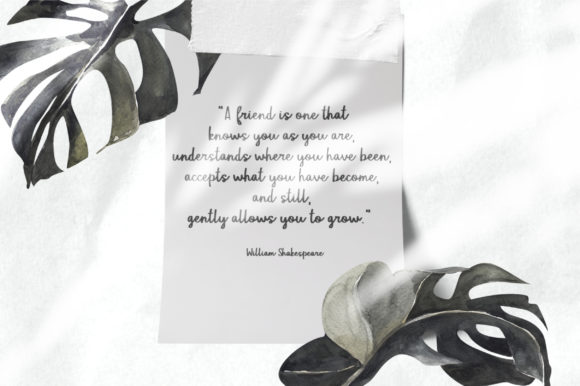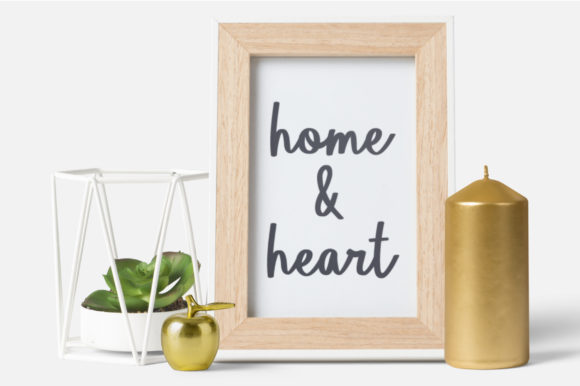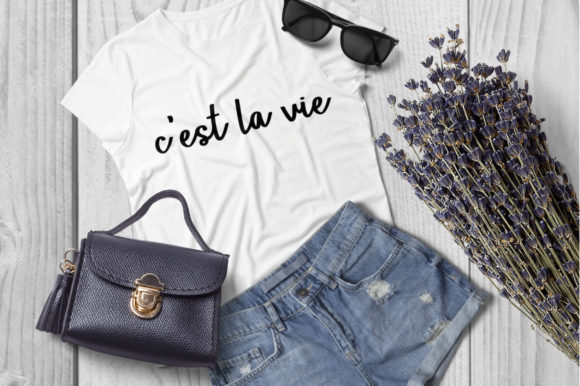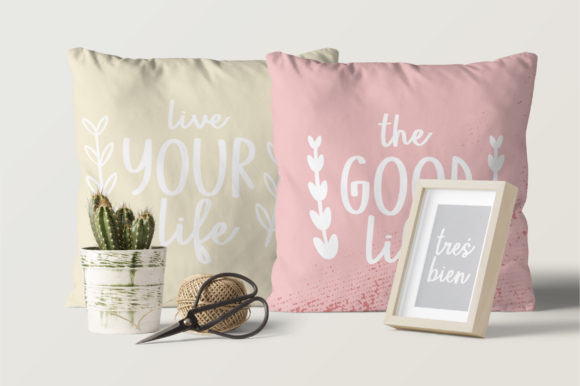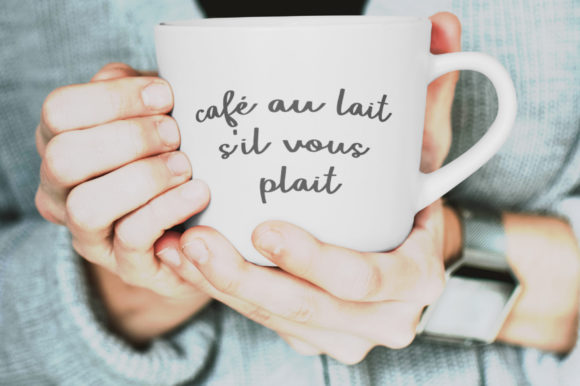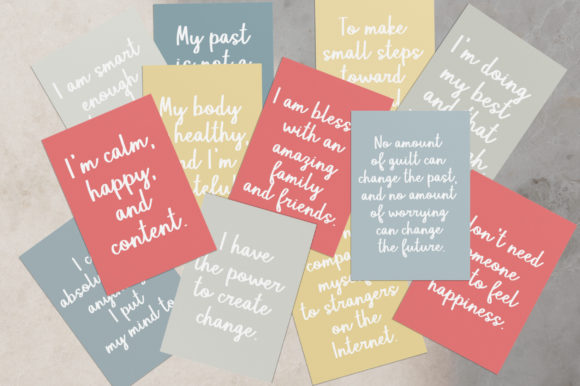
The Perfect Blend of Elegance and Whimsy: Jackson Square Font
Have you ever stared at a blank page, searching for the perfect font to bring your design to life? That moment of creative hesitation is a familiar one for many designers. As you browse through fonts, you’re on the lookout for something that exudes a touch of sophistication, yet still conveys a sense of playfulness.
Enter Jackson Square Font, a flowing handwritten font that embodies the perfect balance of elegance and whimsy. This beautiful font is designed to elevate your projects, from elegant invitations to whimsical illustrations. Its timeless style makes it an invaluable addition to any designer’s toolkit, allowing you to create spectacular designs that stand out from the crowd.
Jackson Square Font Key Features
- Font Family: A unique, hand-drawn font with a mix of modern and vintage elements.
- Size: The font includes a range of weights, from Light to Bold, allowing for flexible typography.
- Resolution: Optimized for use at high resolutions, making it suitable for print and digital applications.
- Unique Characteristics: Features a distinctive, hand-crafted feel with subtle imperfections and variations in letterforms.
- Font Size Range: Suitable for use in body text, headlines, and titles, with font sizes ranging from 8pt to 48pt.
Designer Review: Jackson Square Font
When I first laid eyes on the Jackson Square Font, I was immediately drawn in by its elegant and refined aesthetic ✨. The font’s classic feel is reminiscent of traditional calligraphy, making it a great choice for projects that require a touch of sophistication. I particularly appreciate the font’s versatility, as it works well in both serif and sans-serif settings.
The font’s line variations and subtle flair add an extra layer of depth and character, making it perfect for titles, headings, and other display text ✨. I’ve used the font in various projects, from business cards to branding materials, and it always looks great.
While the Jackson Square Font is an excellent choice for many projects, there are a few limitations to consider ⚠️:
- It’s not ideal for body text, as it can be quite dense and may be difficult to read in smaller sizes.
- The font’s ornate details may not be suitable for projects that require a more modern or minimalist aesthetic.
- It’s not a fully functional font, meaning it may not include all the glyphs and characters you need for international languages.
Overall, I think the Jackson Square Font is a great addition to any designer’s toolkit. While it may have some limitations, its unique character and versatility make it a valuable resource for any project that requires a touch of elegance and sophistication ✨.
Practical Application Guide for Jackson Square Font
For the most striking results, pair Jackson Square Font with bold, bright colors and ornate graphics. It’s particularly effective in wedding invitations, historical or vintage-themed designs, and travel brochures.
Alternatives to Jackson Square Font
Playfair Display is a luxurious, high-end serif font ideal for creating elegant and sophisticated designs. It is perfect for use in invitations, wedding designs, and high-end branding. Compared to Jackson Square Font, Playfair Display has a more refined and classic feel, making it suitable for formal and traditional designs.
Great Vibes is a modern, elegant script font that works well for creating stylish and sophisticated designs. It is ideal for use in invitations, wedding designs, and branding for fashion and lifestyle companies. Compared to Jackson Square Font, Great Vibes has a more fluid and dynamic feel, making it suitable for designs that require a touch of elegance and sophistication.
Canela
Canela is a beautiful, elegant script font that is perfect for creating romantic and sophisticated designs. It is ideal for use in wedding designs, invitations, and branding for companies that want to convey a sense of elegance and refinement. Compared to Jackson Square Font, Canela has a more delicate and feminine feel, making it suitable for designs that require a touch of romance and whimsy.
Carolyna Pro is a modern, elegant script font that works well for creating stylish and sophisticated designs. It is ideal for use in branding, advertising, and editorial designs that require a touch of elegance and sophistication. Compared to Jackson Square Font, Carolyna Pro has a more modern and sleek feel, making it suitable for designs that require a touch of contemporary style.